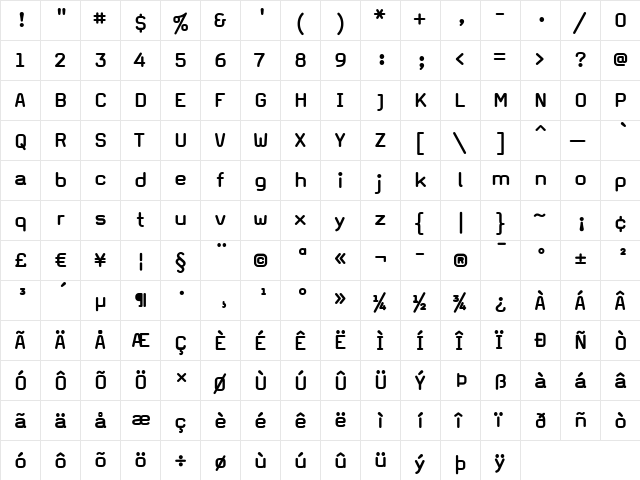
MagdaClean Bold Font Preview
MagdaClean Bold
| Foundry | Henning Krause, Critzler, . Published by FontShop International. FontFont Release |
Design Context for MagdaClean Typeface
MagdaClean is a composed and adaptable typeface that performs quietly and consistently across a wide range of design contexts. Its bold stroke weight gives it real presence on the page.